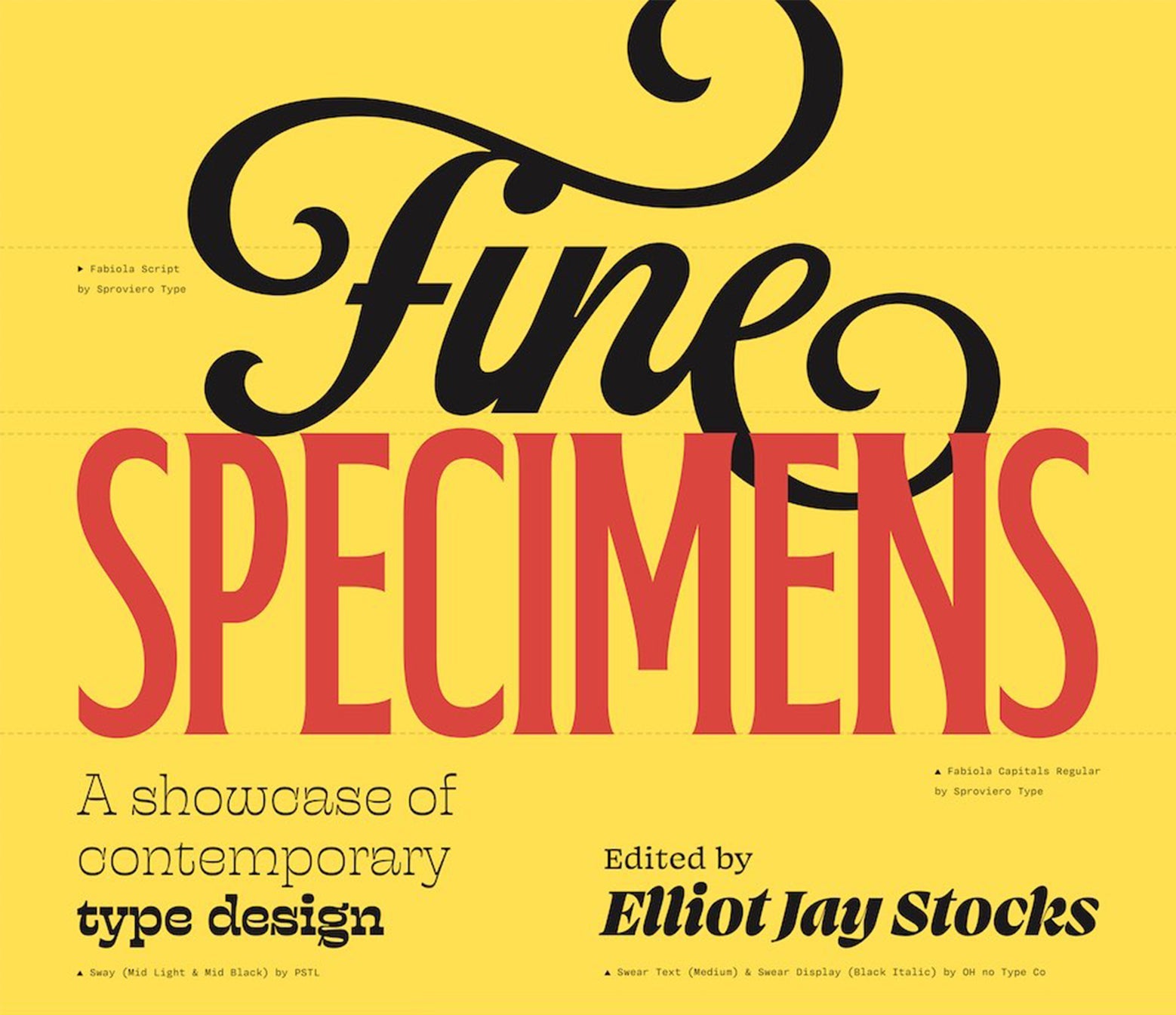
SilverStag Type Foundry Featured in Fine Specimens — A Showcase of Contemporary Type Design by Elliot Jay Stocks
There are milestones in this work that you see coming — a font launch, a good review, a feature on a design blog. And then there are the ones that arrive quietly and mean more than you expected.
Being included in Fine Specimens: A Showcase of Contemporary Type Design, edited by Elliot Jay Stocks, is one of the latter.
Three typefaces from SilverStag Type Foundry made it into the book: The Silver Editorial, Collidge, and SLTF Boxroom. Printed on actual pages. In an actual book. Next to work from foundries I've admired and studied for years.
I'm still getting used to that.
What Is Fine Specimens?
Fine Specimens is a curated book dedicated entirely to contemporary type design. Edited by Elliot Jay Stocks — designer, type enthusiast, and someone who has spent years championing independent type culture — the book brings together typefaces from independent foundries and type designers from around the world.
It's not a catalog. It's a statement about where type design is right now — who's making it, what it looks like, and why it matters.
The Three Typefaces
The Silver Editorial
The Silver Editorial is SilverStag's flagship serif family — a multilingual editorial typeface built around the bold, expressive serifs that defined high-fashion magazine typography in the 1980s. It's available in Regular and Italic, and it's designed for the kind of layouts where typography needs to carry as much weight as the photography beside it.
It was one of the first typefaces that really defined what SilverStag is about — elegant but not delicate, confident but not loud.
Collidge
Collidge is the opposite end of the spectrum, and I love that both ended up in the same book.
It's an ultra-bold sans serif with four versions — Regular, Regular Outlined, Rounded, and Rounded Outlined — and over 150 ligatures and alternates. Chunky, unapologetic, built for maximum impact. The kind of typeface that doesn't whisper.
Seeing Collidge on a printed page next to more restrained work from other foundries is a good reminder that type design doesn't have one voice. It has many.
SLTF Boxroom
Boxroom is a bold modern serif that sits somewhere between vintage elegance and contemporary character. Sharp extended serifs, unexpected decorative details on letters like the O, Q, E, and P — it adds something unexpected to a layout without announcing itself too loudly.
It's one of those typefaces that rewards a closer look.
What This Means to Me
I've been running SilverStag Type Foundry as a solo operation since the beginning. No studio, no team — just me, a screen, and a lot of hours spent on letterforms that most people will never consciously notice.
That's the nature of type design. The goal is for the work to disappear into the layout, to serve the content without drawing attention to itself. But every once in a while, it's good to have someone point at it and say: this is worth looking at.
Type design can feel like a solitary pursuit — and it mostly is. But books like Fine Specimens are a reminder that there's a community around this work, that people care about it, that the hours spent adjusting curves and kerning pairs and OpenType features actually matter to someone on the other end.